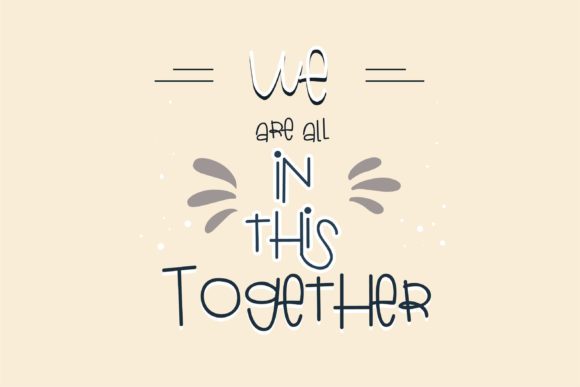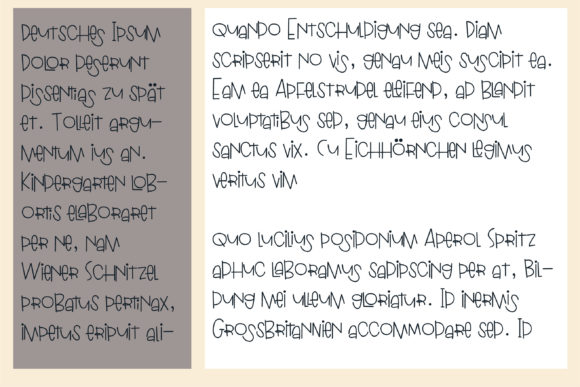
ZP Moonshine Font
db-ku.com - Script & Handwritten -- This cute handwritten font has a whimsical look and feel, and some wonderful ligatures that keep your projects fresh.